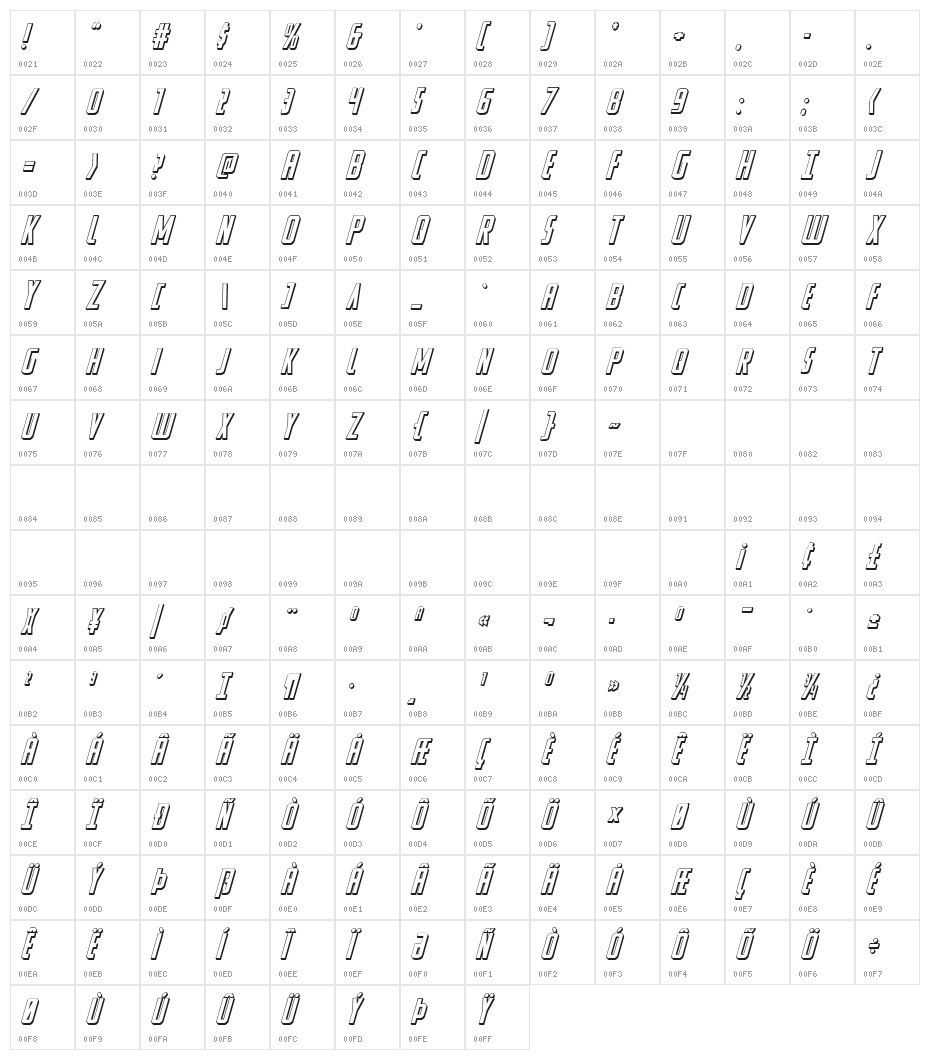
Watchtower 3D Italic Font
Watchtower 3D Italic Description
This font features a bold, three-dimensional design with a strong italic slant, giving it a dynamic and modern appearance. The letters are outlined, creating a striking visual effect that enhances readability and adds depth. The geometric shapes and clean lines contribute to its contemporary style, making it suitable for attention-grabbing headlines and logos. The uppercase and lowercase letters maintain consistency in style, while the numerals and special characters are designed to complement the overall aesthetic. The font's unique 3D effect is achieved through careful shading and perspective, making it stand out in any design project.
| Proposed Projects | Ideal for use in branding, posters, video game titles, and any project requiring a bold, eye-catching typeface. |